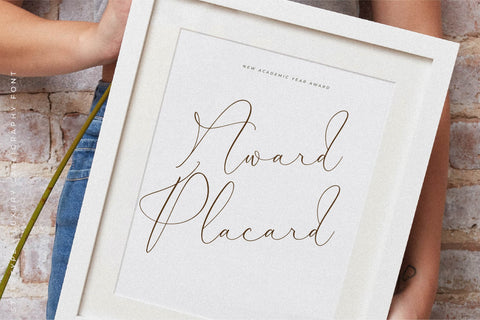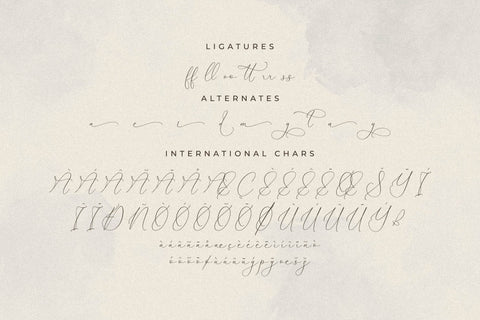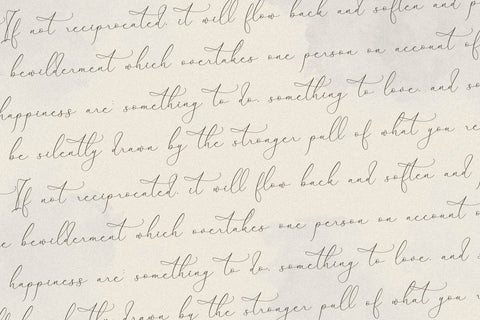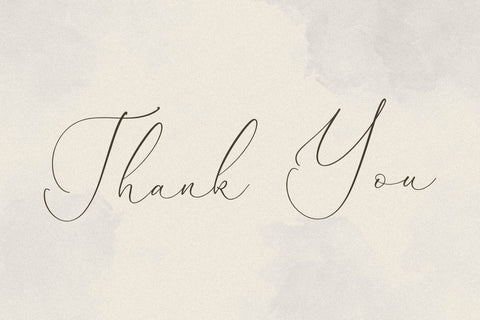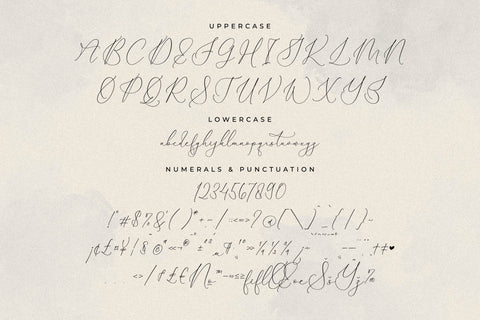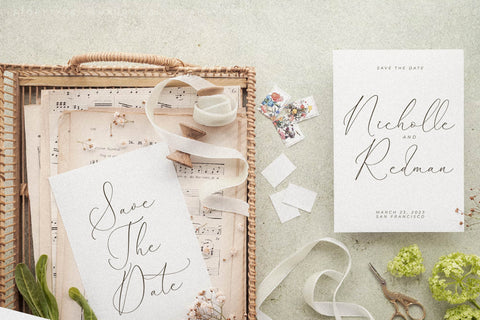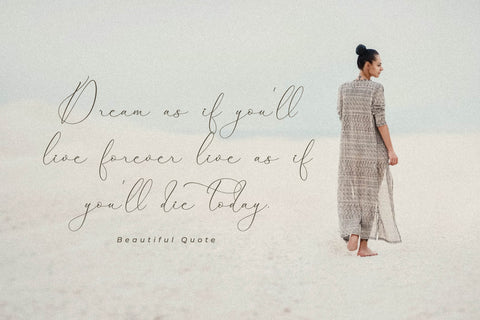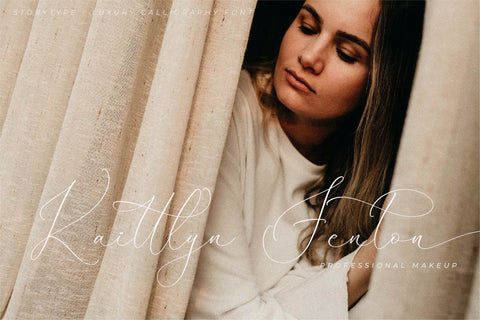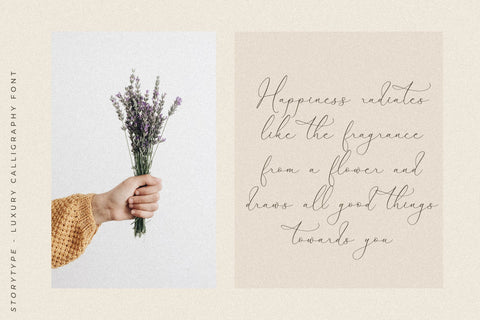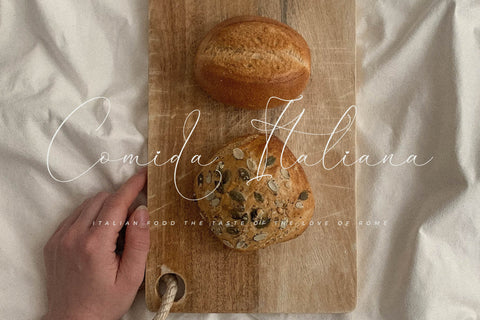
Qirtandy Fantasia - Luxury Calligraphy Font
Proudly present Qirtandy Fantasia - Luxury Calligraphy Font , created by Storytype,
A luxury script that has own unique style & modern look.